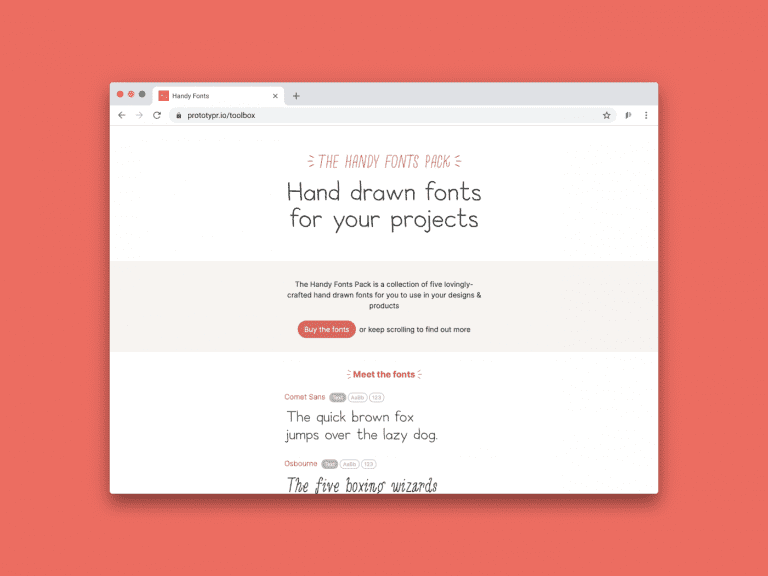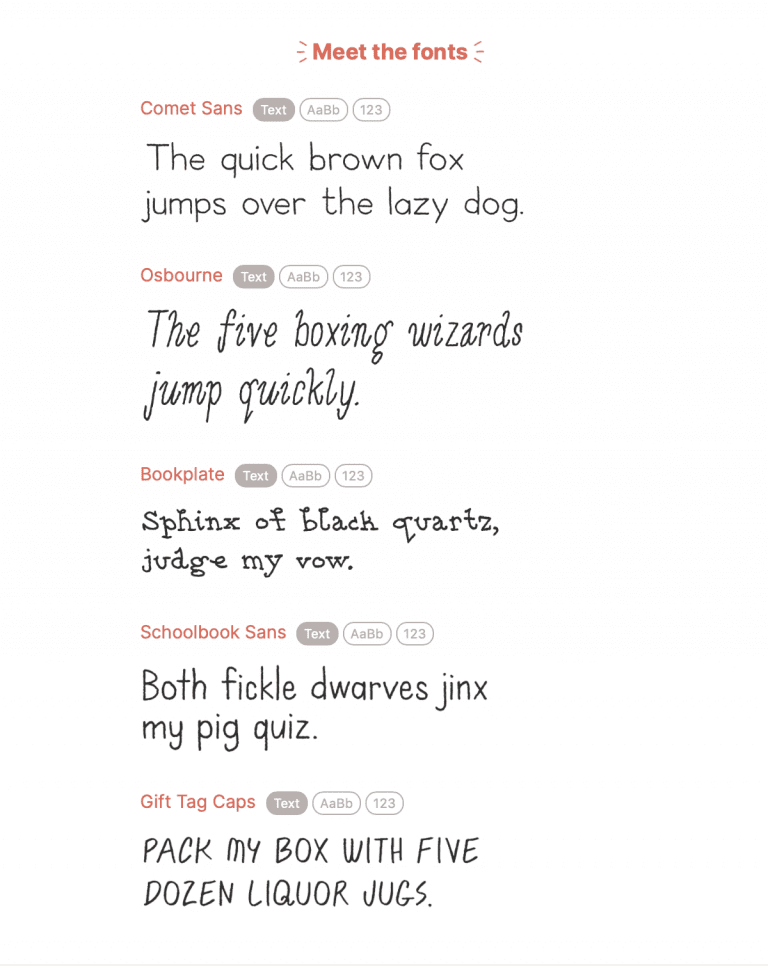
A collection of five carefully crafted hand drawn fonts. Handy Fonts provides fonts in different formats, like OTF and WOFF, and includes:
- 🔣 300 kerned glyphs and symbols
- ‼️ Punctuation, and
- ✍️ All European accents